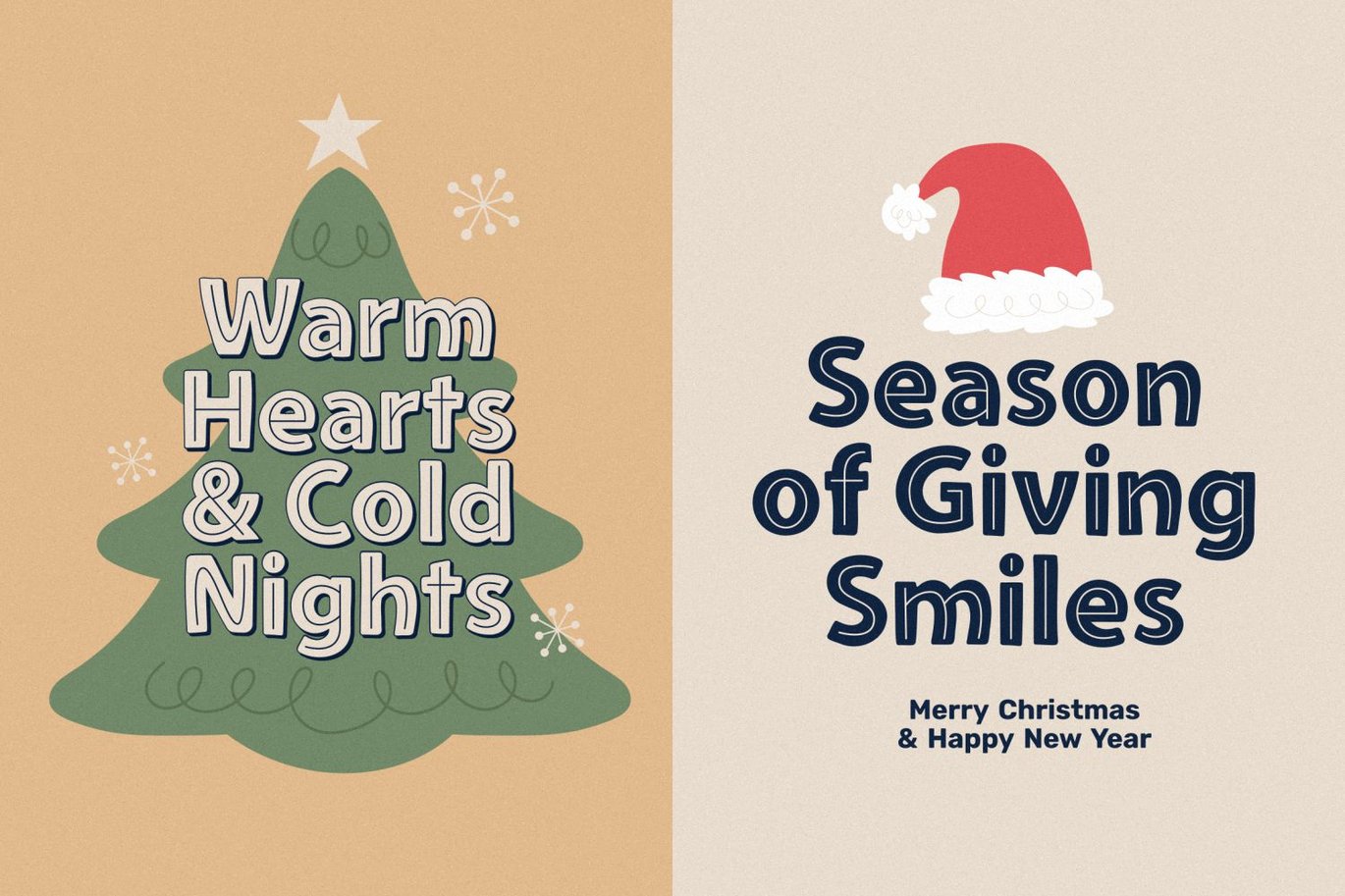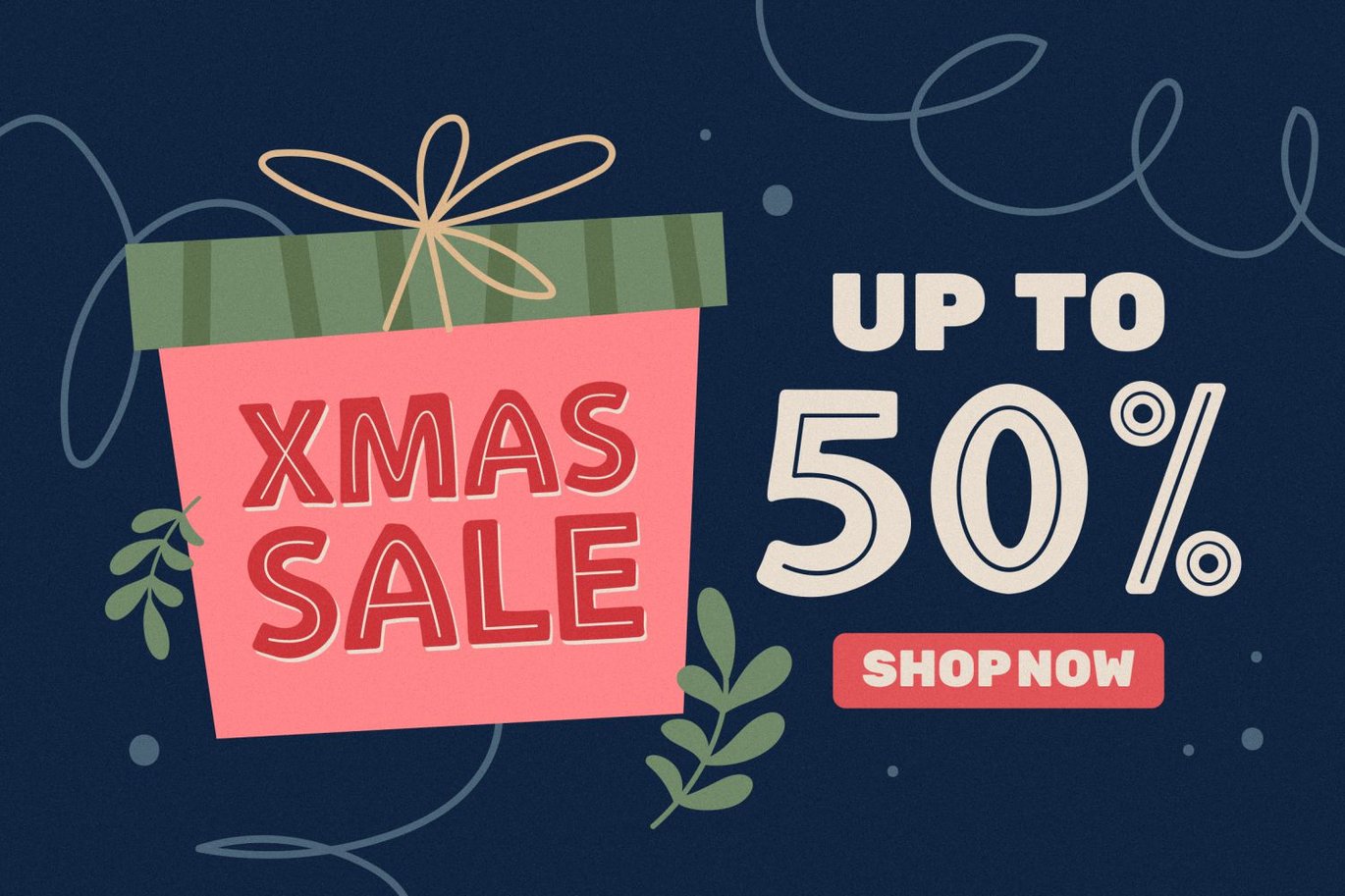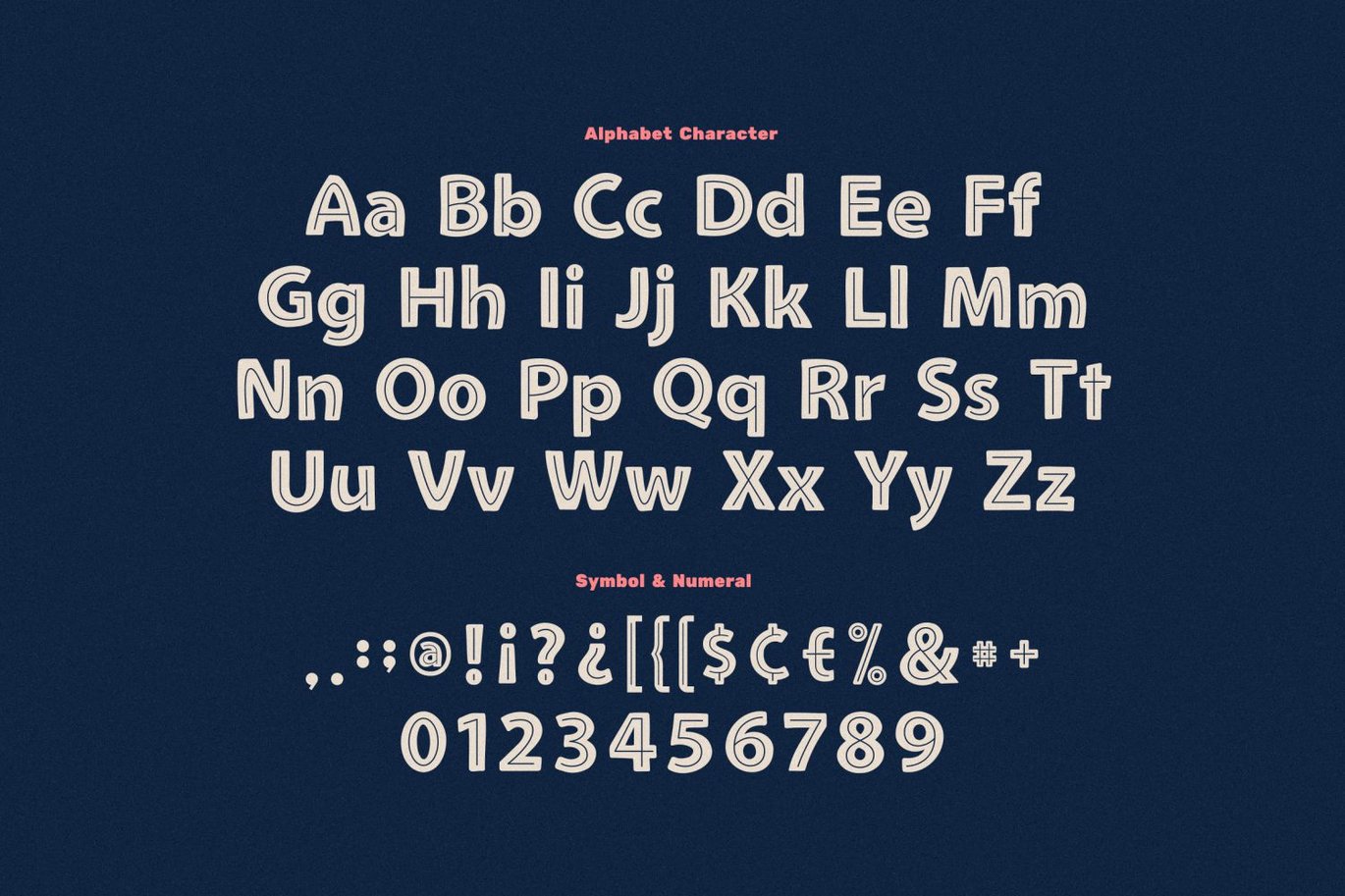
Cheer Carols
Cheer Carols is a festive Christmas font that brings the warmth and joy of holiday carols to life with decorative characters resembling birthday candles. Each letter is designed with a playful, candle-like appearance, adding a unique, celebratory touch to your holiday projects.
The whimsical details of the flame-topped letters make this font perfect for Christmas cards, party invitations, or seasonal banners that seek to capture the lighthearted spirit of the season.
With its joyful and decorative style, "Cheer Carols" is ideal for spreading warmth and cheer in your festive designs. The candle-inspired details evoke a sense of celebration, making it a delightful choice for both personal and commercial holiday creations. Whether you're designing fun family Christmas cards or lively event flyers, this font brings a bright and joyful energy that complements the festive atmosphere of the holidays.